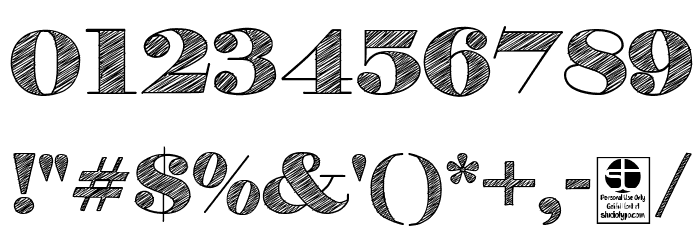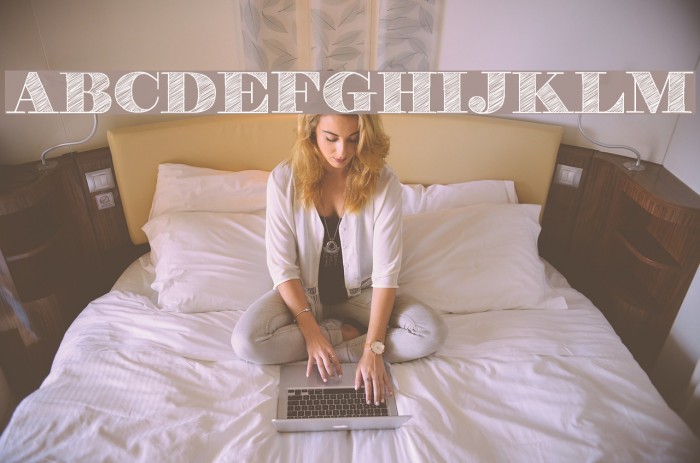
H&B Sketch Demo Font
This font features a unique sketch-like texture that gives it a hand-drawn appearance. The letters are bold and have a classic serif style, with distinct strokes that create a textured, shaded effect. This adds a playful and artistic touch to the traditional serif form. The uppercase and lowercase letters maintain a consistent style, with the serifs adding a touch of elegance. The numbers and special characters are equally detailed, making this font versatile for various design needs. Its sketchy texture makes it stand out, providing a creative flair that is both eye-catching and sophisticated.
A bold serif font with a hand-drawn, sketch-like texture.
- Proposed Projects: Ideal for creative projects such as posters, invitations, and artistic branding materials.
- Overall Style: Decorative